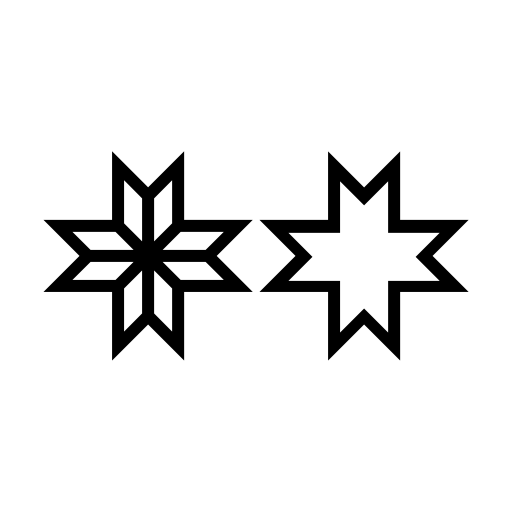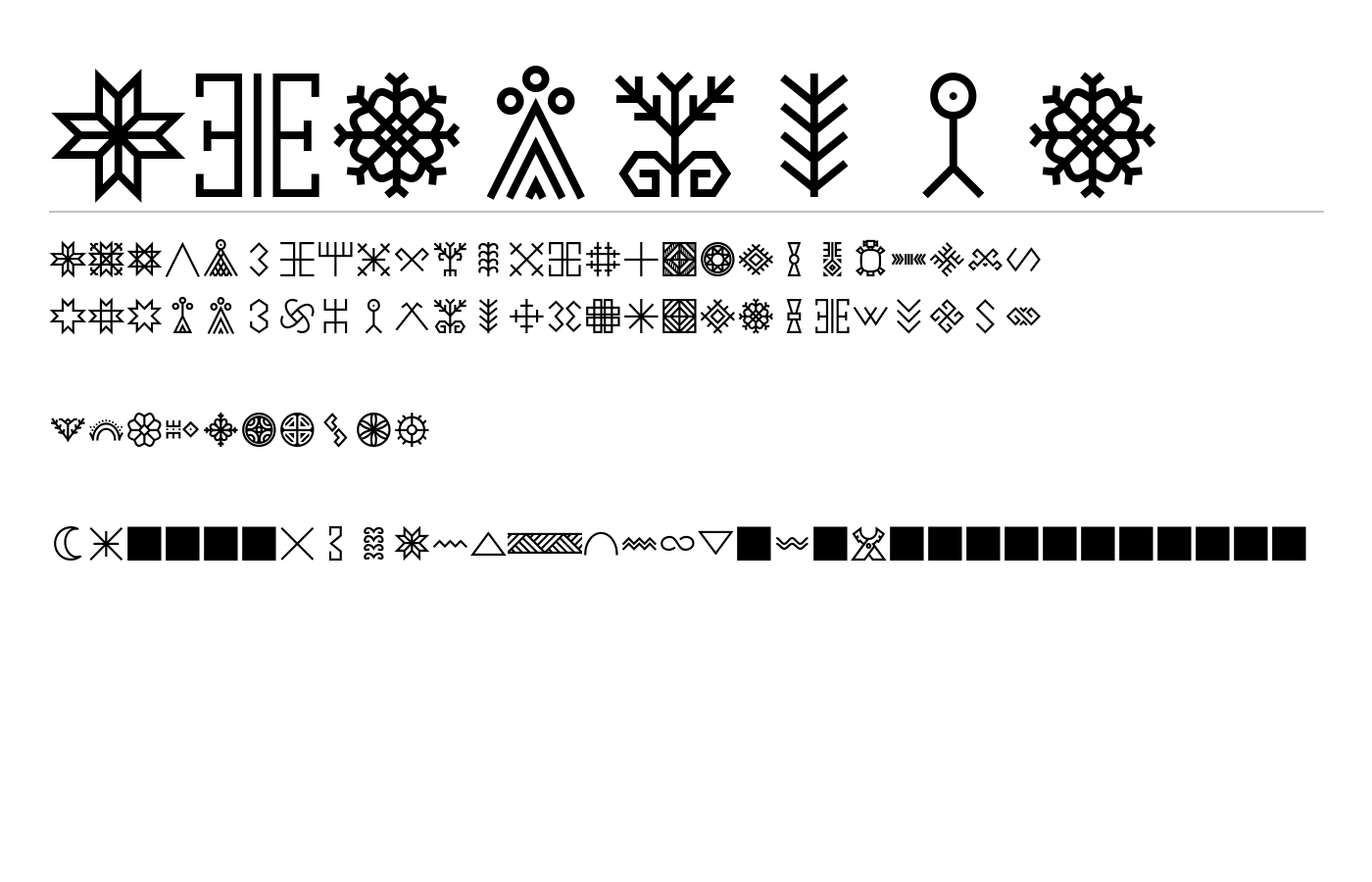
Auseklis is a decorative symbol font inspired by traditional folk and ethnic motifs, featuring geometric, symmetrical shapes with bold, uniform strokes. This distinctive, ornamental style works beautifully for cultural branding, packaging, or creative projects seeking a unique, handcrafted feel that evokes heritage and craftsmanship. Its intricate designs make it ideal for accents and artistic use rather than body text, bringing a touch of vintage charm and authenticity to your visuals.
Auseklis Font
About Auseklis Font
| Font family | Auseklis Font |
| Designer | GGBotNet |